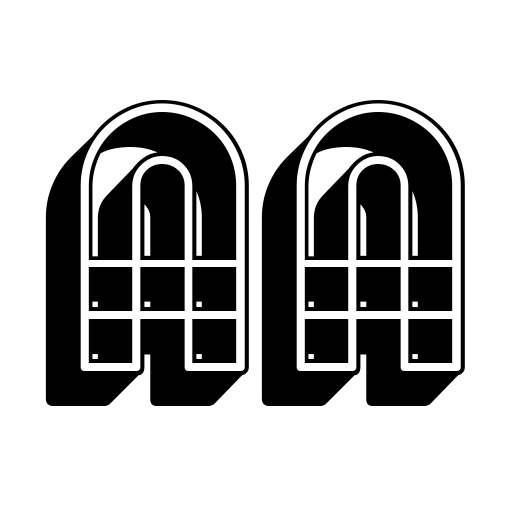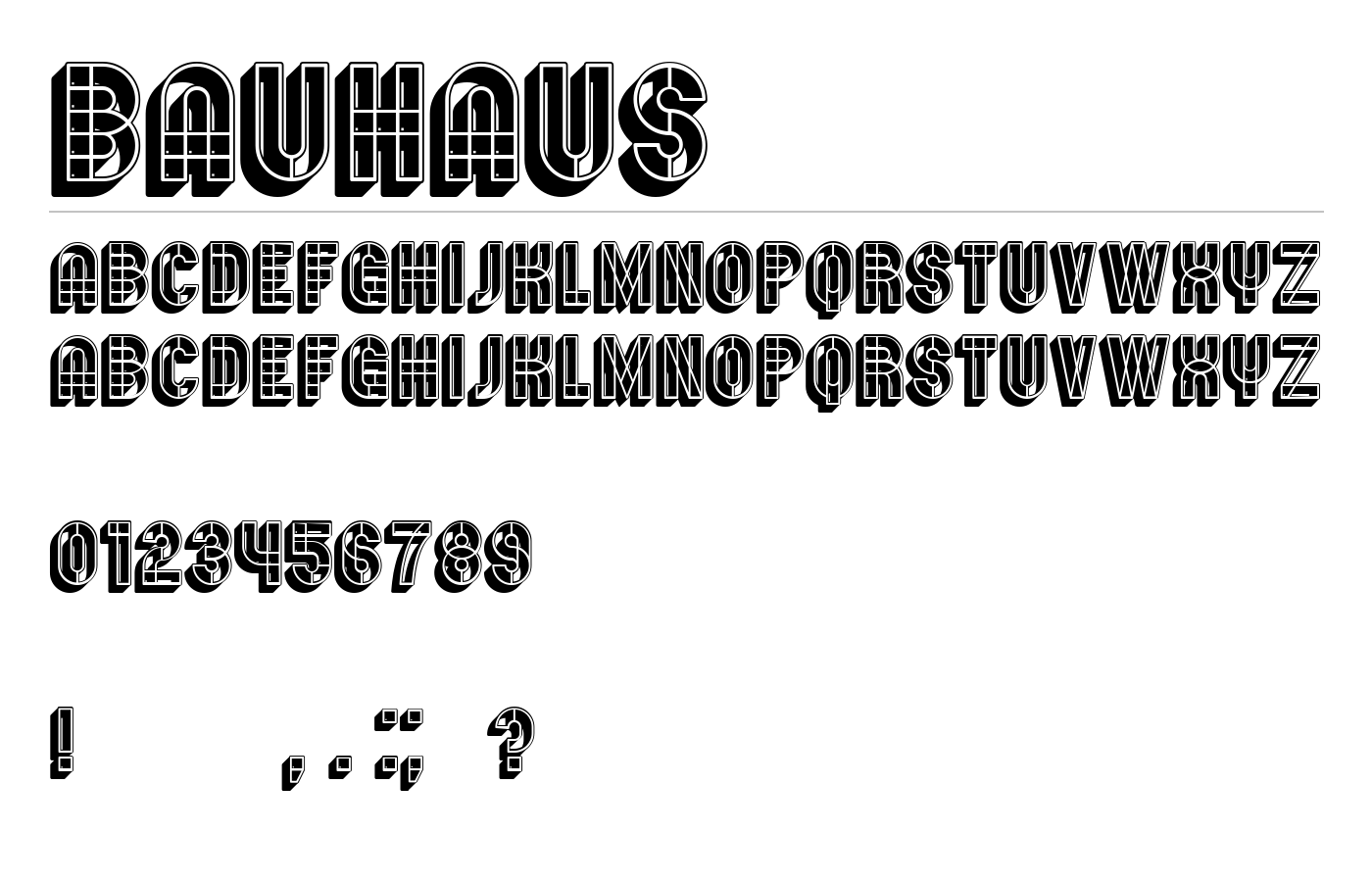
Bauhaus Font is a bold and geometric display typeface that captures the spirit of modernism with its thick, blocky letters and layered shadow effect. Its unique design, combining solid shapes with outlined details, makes it perfect for eye-catching headlines, logos, and creative branding that demands a retro-futuristic, artistic vibe. This font works best in settings where a strong, playful personality and visual impact are needed to stand out.
Bauhaus Font
About Bauhaus Font